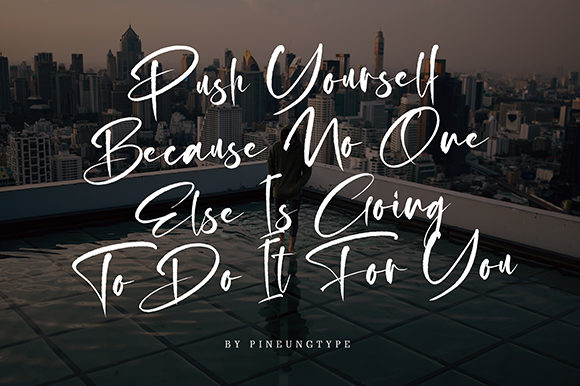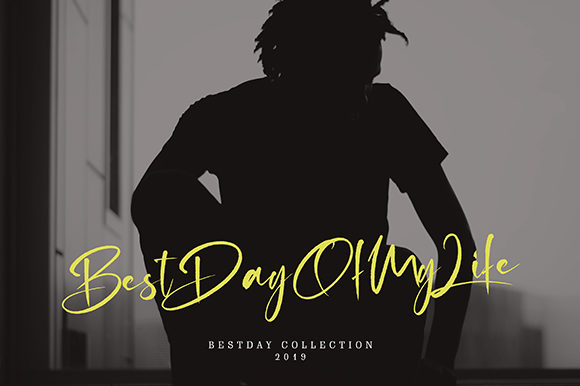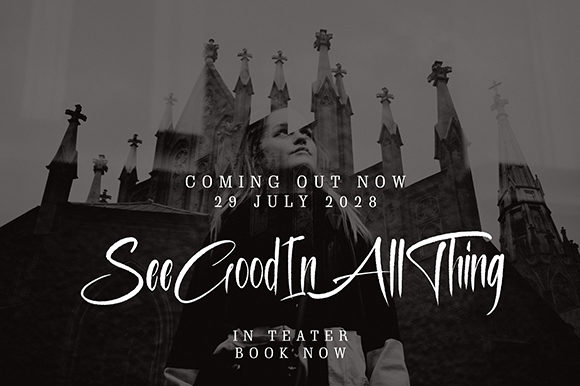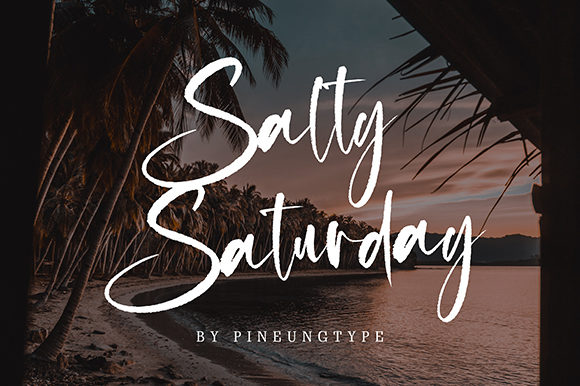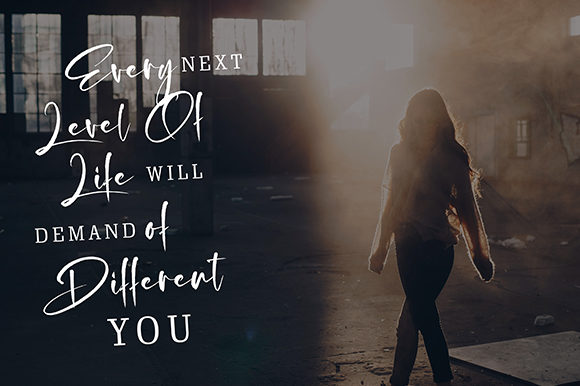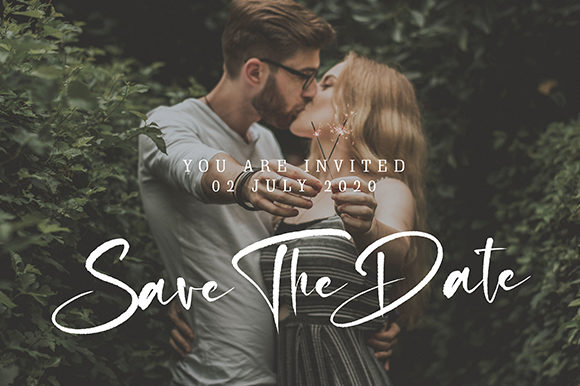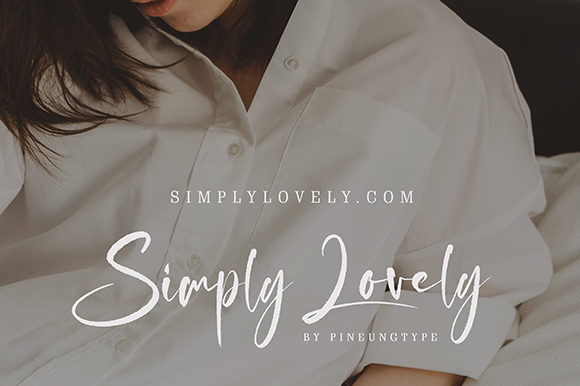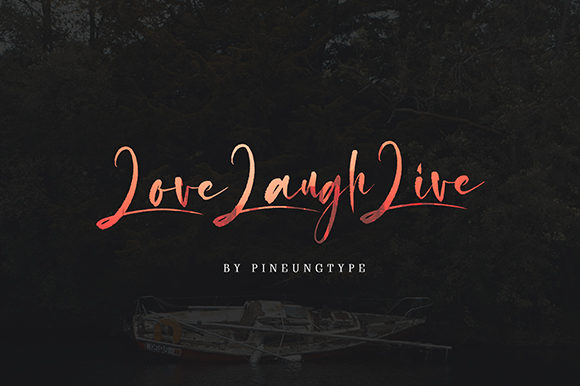
HomeScript FontsRudolf Authentic Font Script Fonts Rudolf Authentic Font FacebookXPinterestWhatsApp Rudolf Authentic Font Poster 2 Rudolf Authentic Font Poster 3 Rudolf Authentic Font Poster 4 Rudolf Authentic Font Poster 5 Rudolf Authentic Font Poster 6 Rudolf Authentic Font Poster 7 Rudolf Authentic Font Poster 8 Rudolf Authentic Font Poster 9 About Rudolf Authentic Font Rudolf Authentic is a unique script font with modern characters. It works well for a wide variety of projects! DOWNLOAD NOW People also explored Snowman Font Agreeable Font Waterssong Font Alfath Signature Font Planet Benson 2 Nattalia Font Jacqualine Font Saturday Font Giory Script Font 309 0 TagsRudolf Authentic Font Previous articleHappy Nature FontNext articleRoyal Fighter Font LEAVE A REPLY Cancel reply Comment: Please enter your comment! Name:* Please enter your name here Email:* You have entered an incorrect email address! Please enter your email address here Website: Save my name, email, and website in this browser for the next time I comment. Personal Use Free BD Alm Personal Use Free Read more about this font Austin Personal Use Free Read more about this font Short Message Personal Use Free Read more about this font Reztop Personal Use Free Read more about this font BLOG Free Fonts Risk: Why Free Fonts Can Be Dangerous for Designers Free Fonts Risk: Why Free Fonts Can Be Dangerous for Designers Using free fonts is a common practice in web and graphic design. However, the... Best Fonts for T-Shirt Design – Top 2025 Picks To increase your work productivity, choose the most readable fonts. Exploring Font Trends